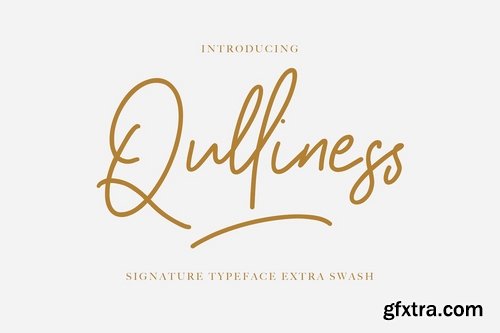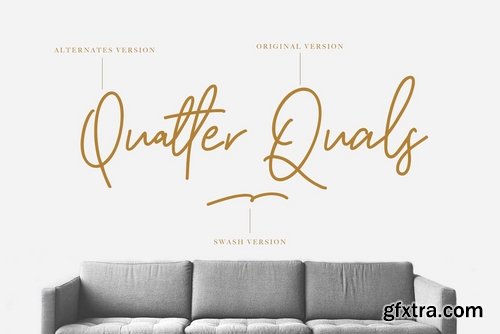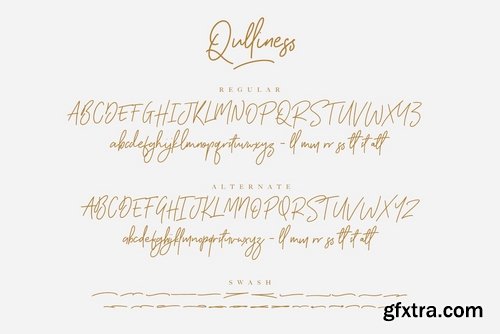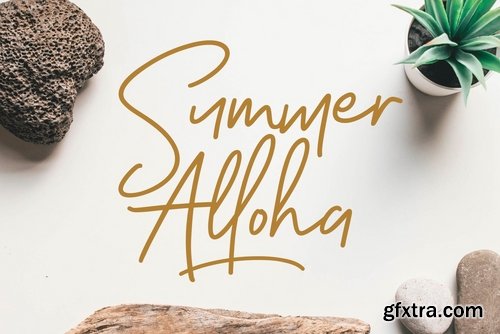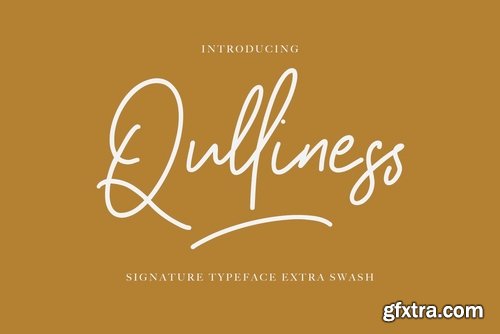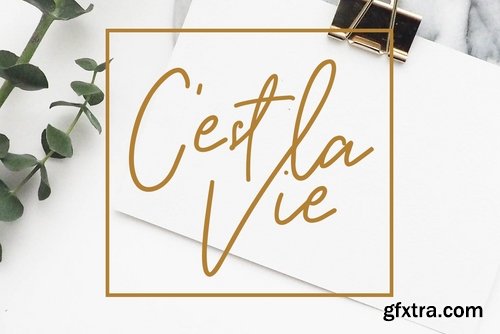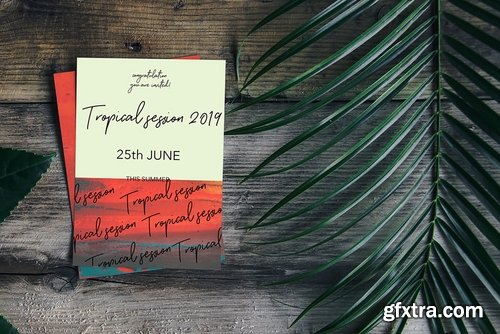
库利辛格签名字体
Give your designs an authentic handcrafted feel."Qulliness Signature Font" is perfectly suited to signature, stationery, logo, typography quotes, magazine or book cover, website header, clothing, branding, packaging design and more.